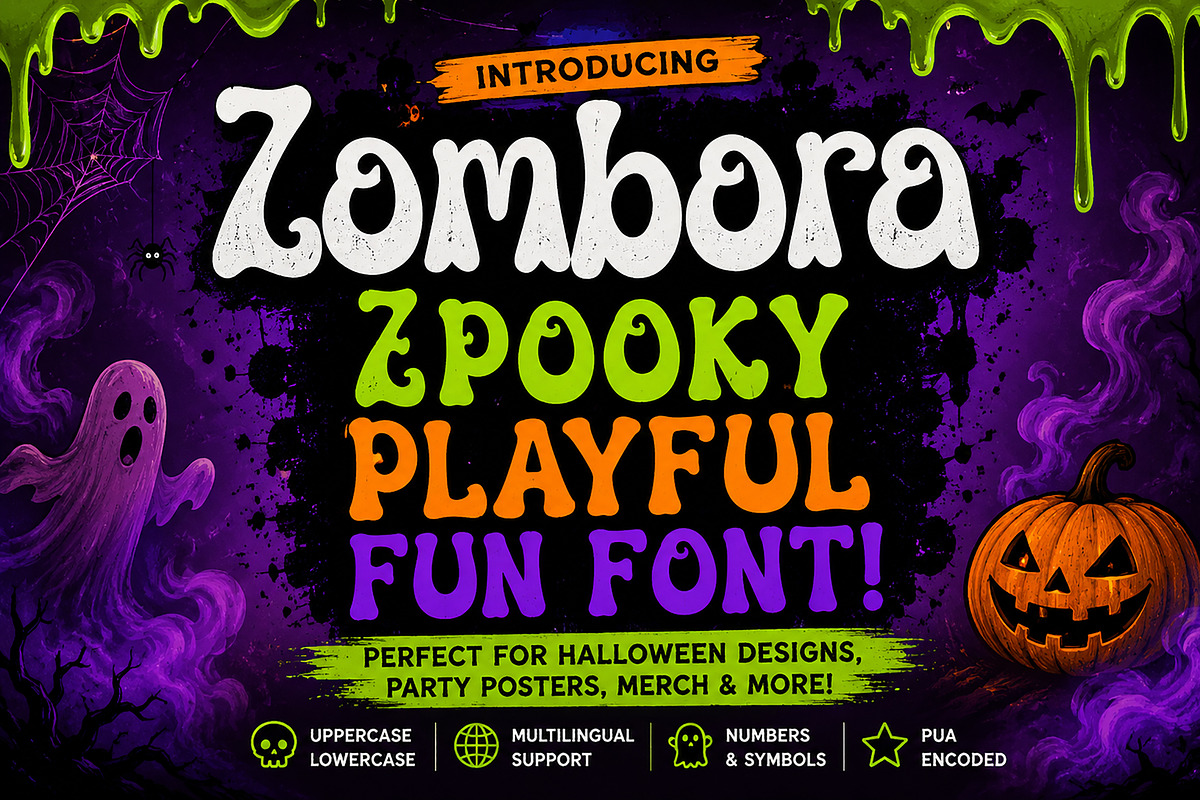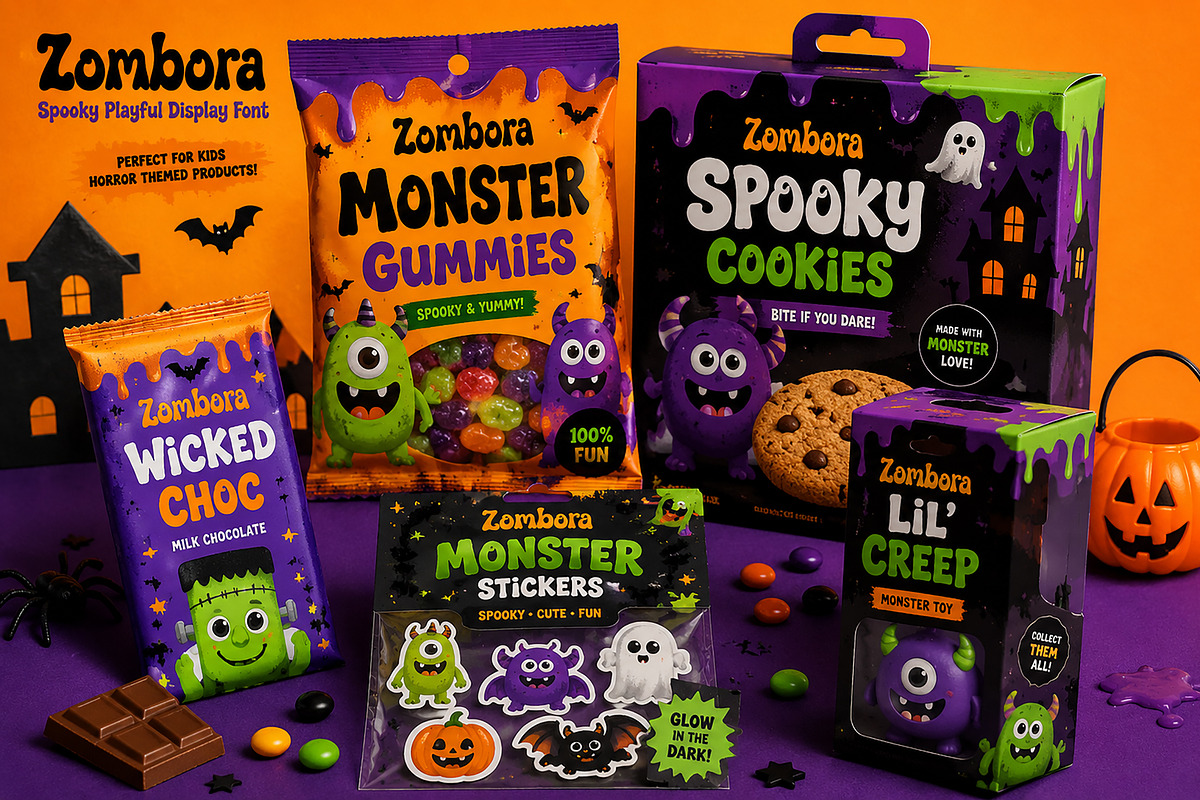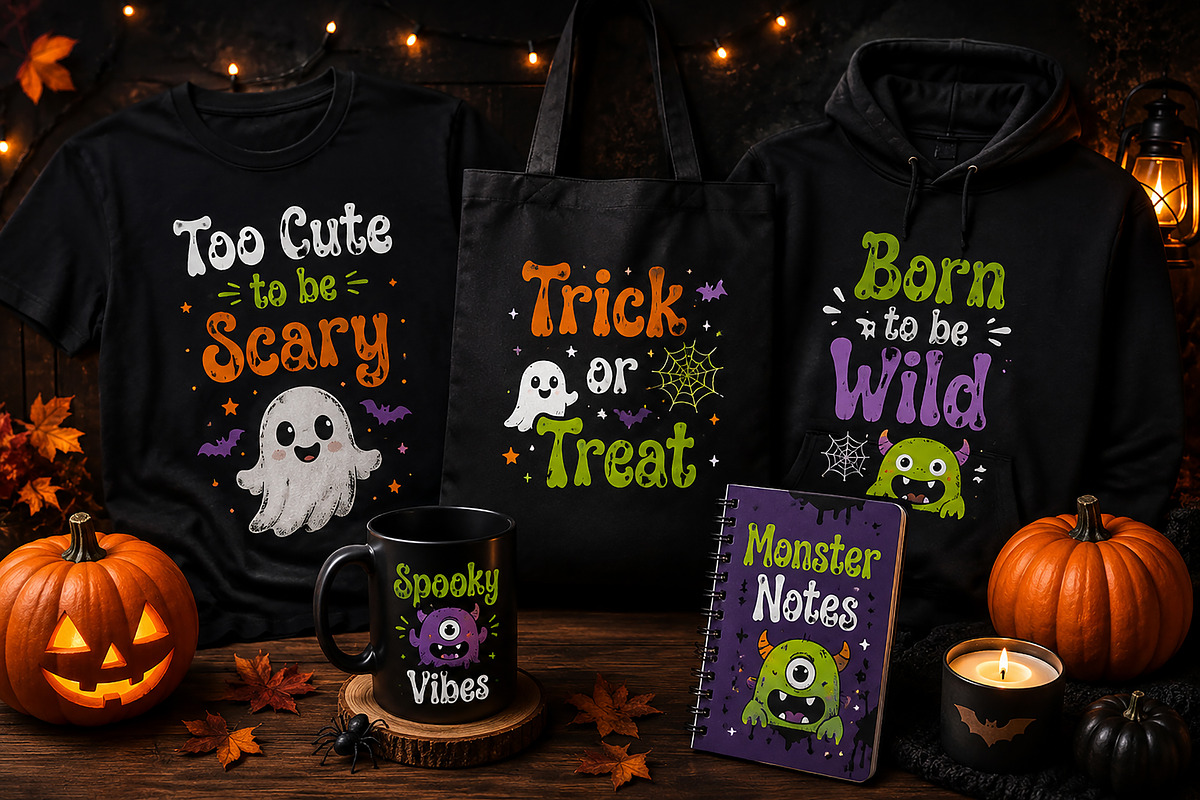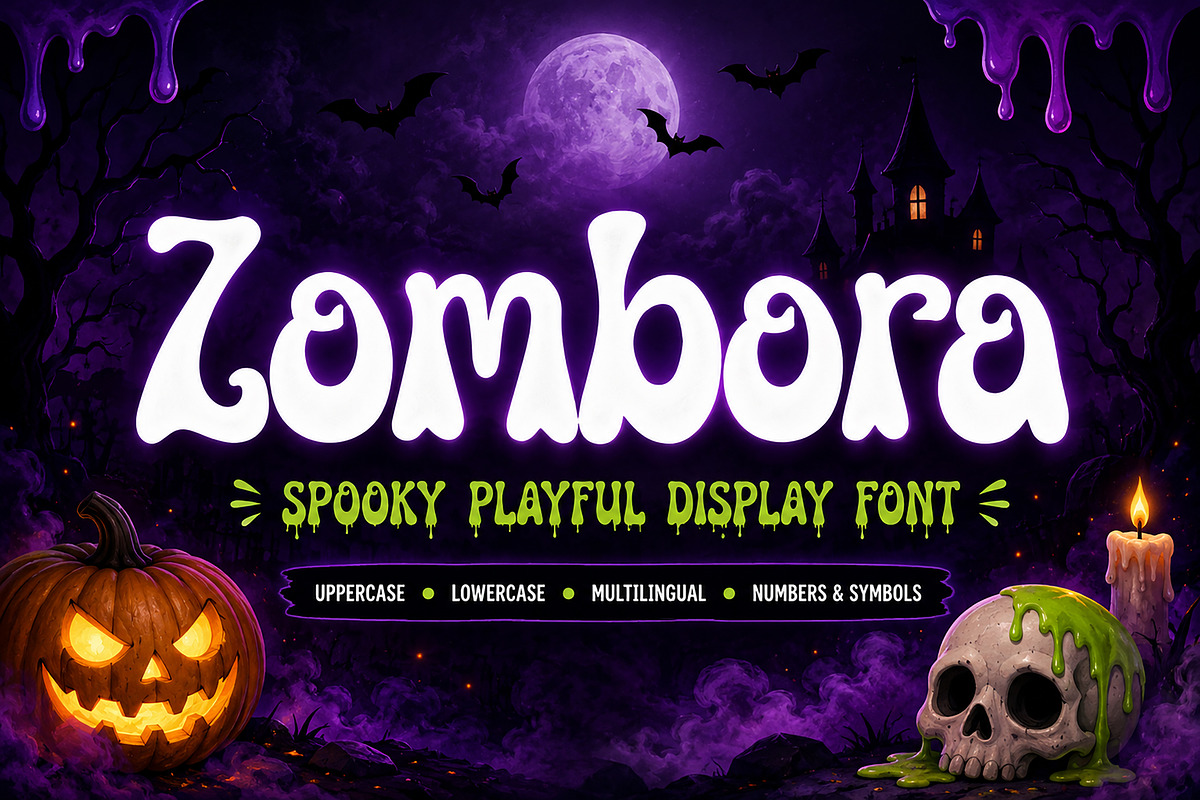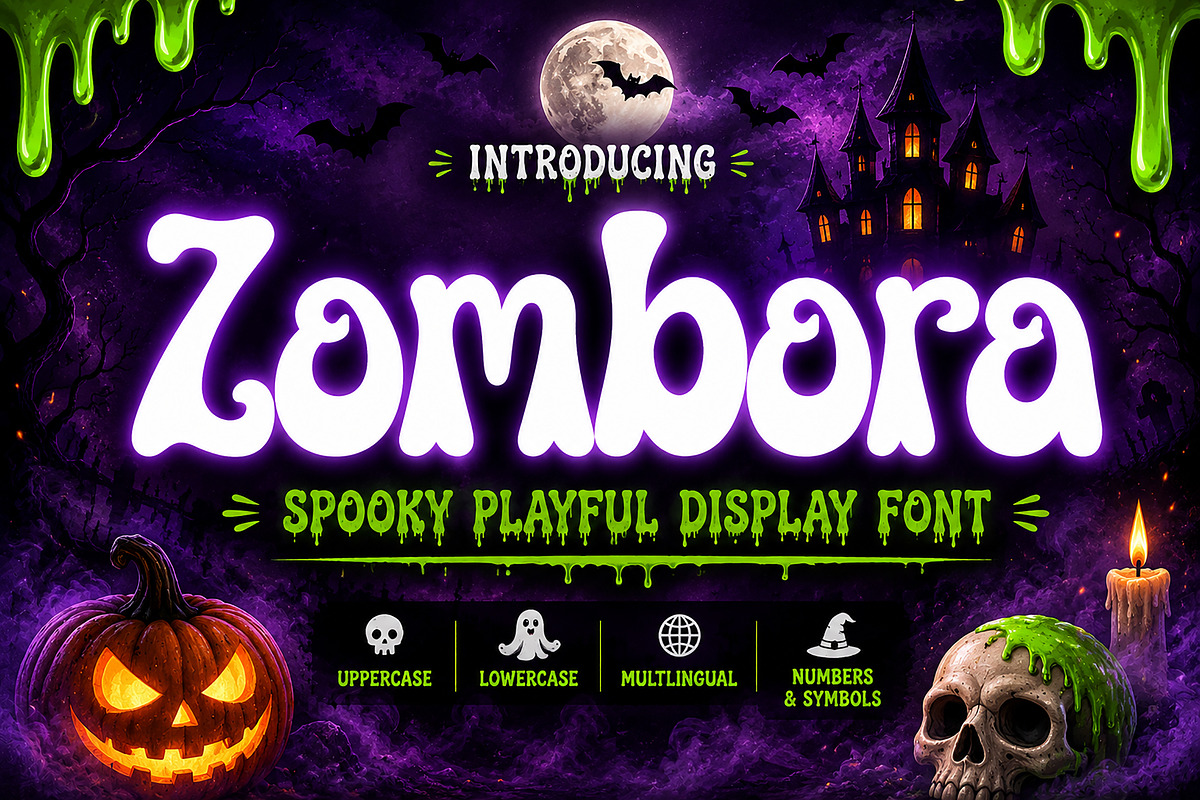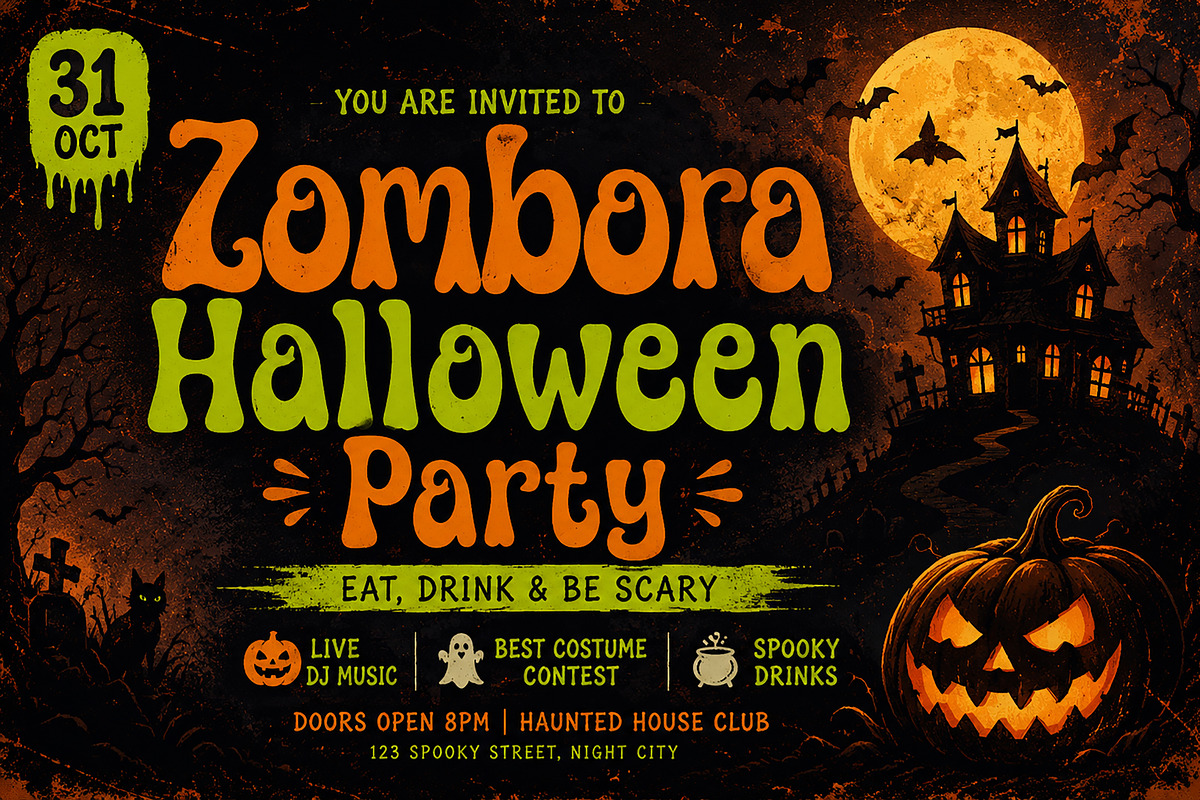
Zombora
Zombora – Spooky Playful Display Font
Zombora is a spooky playful display font with a fun horror twist, perfect for Halloween-themed projects, kids’ designs, party invitations, product packaging, posters, and social media graphics. With its bold chunky shapes and quirky spooky vibe, Zombora brings a creepy-cute personality that makes your designs stand out instantly.
Designed with a unique blend of horror and playful energy, this font is ideal for creating eye-catching titles, branding, merchandise, stickers, candy packaging, toy labels, and festive seasonal projects.
Whether you are working on Halloween posters, spooky merch, or fun kids’ branding, Zombora adds a bold and memorable touch to every design.
Uppercase Letters
Lowercase Letters
Halloween Posters
Party Invitations
Kids Horror Packaging
Stickers & Labels
T-shirt Designs
Branding Projects
Merchandise Design
Fun Seasonal Crafts